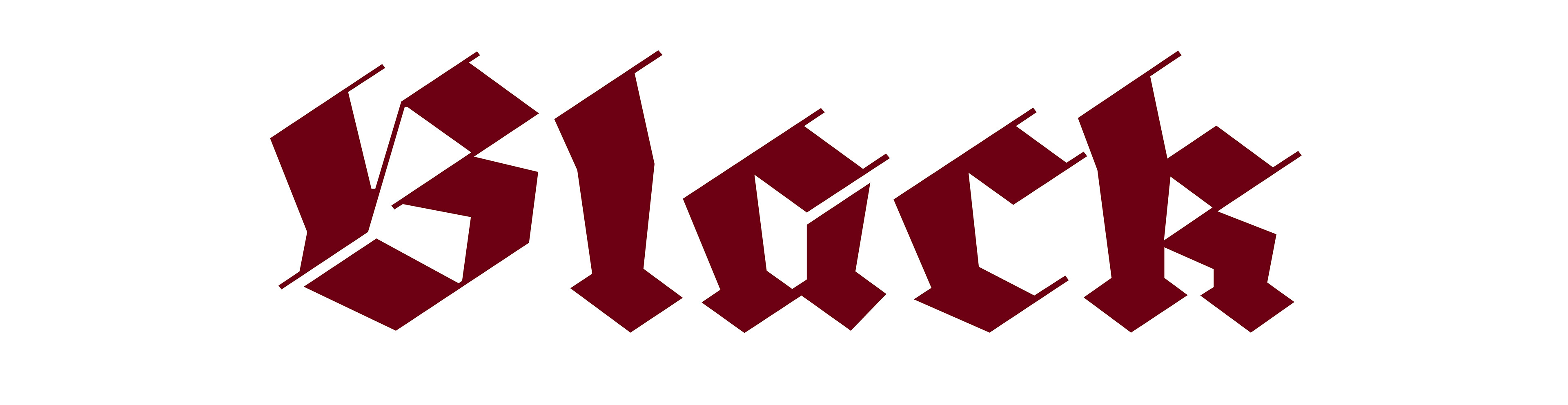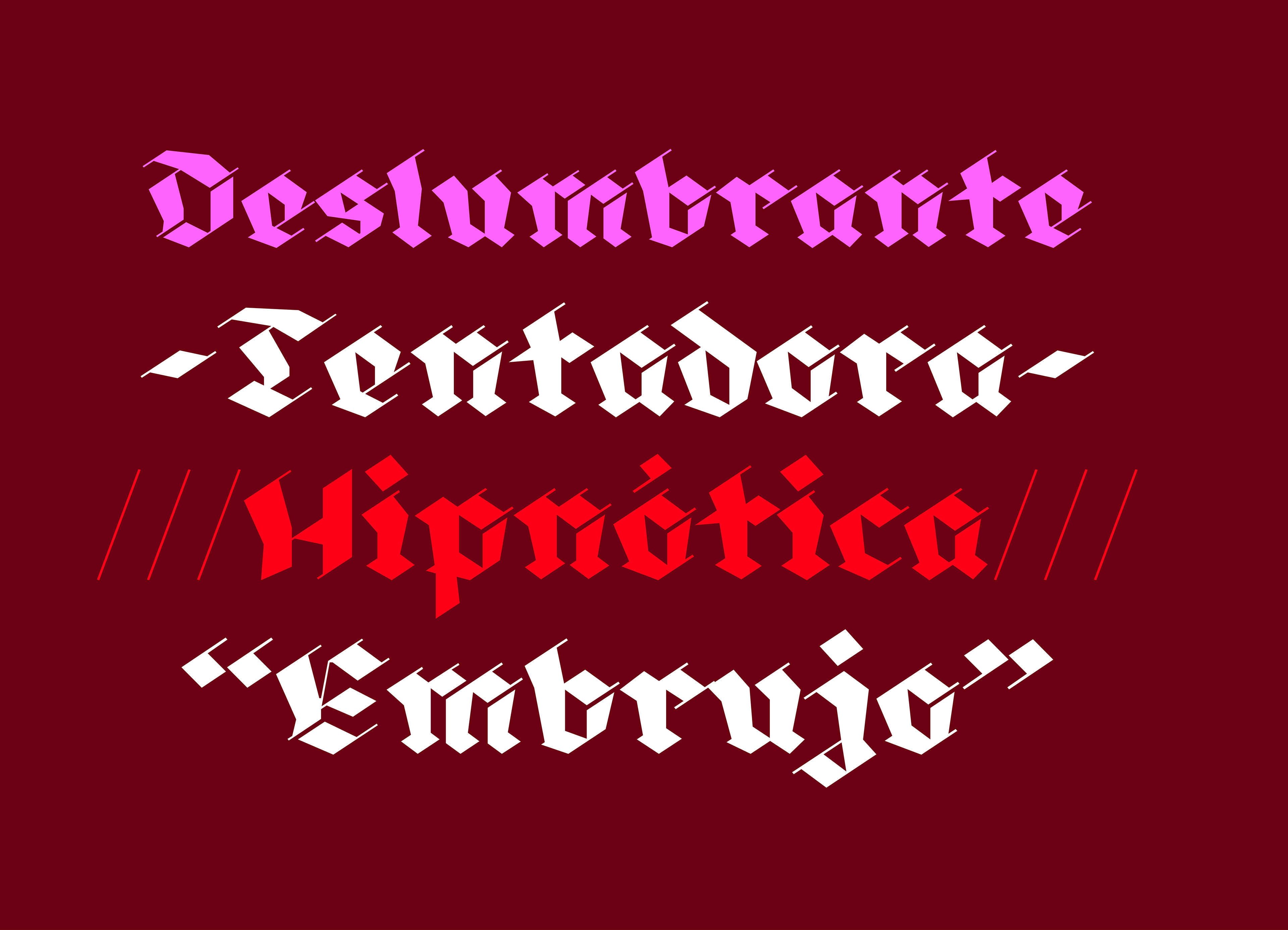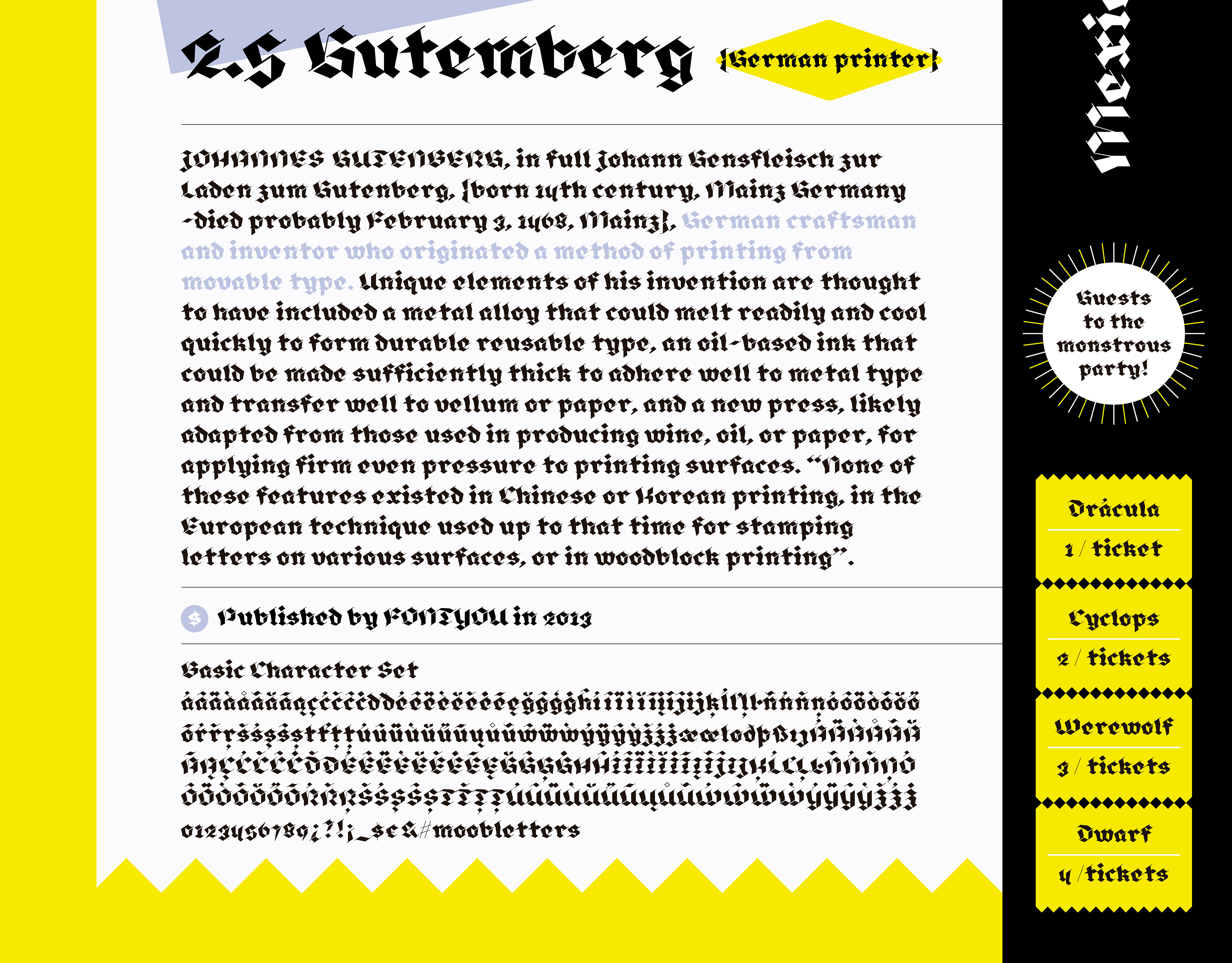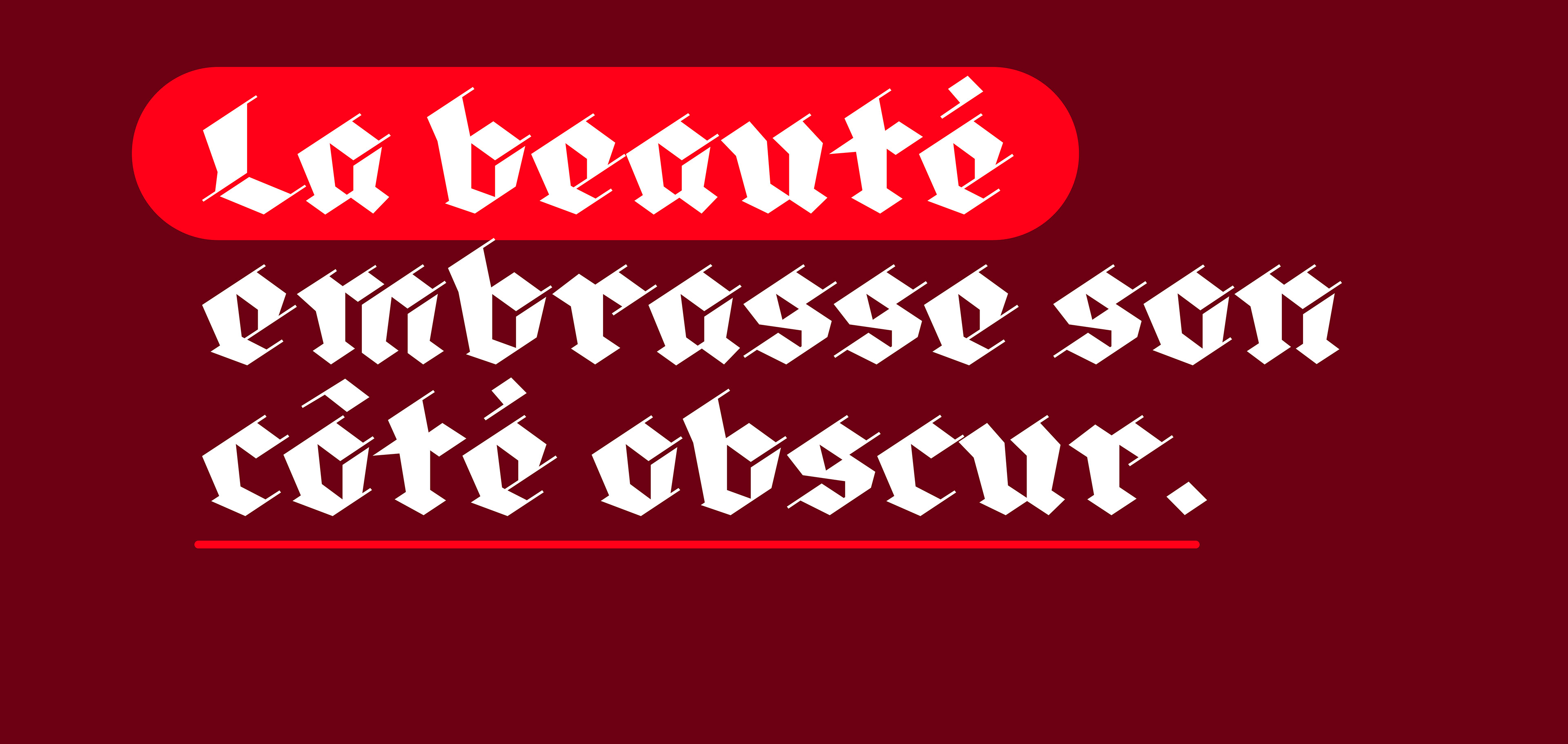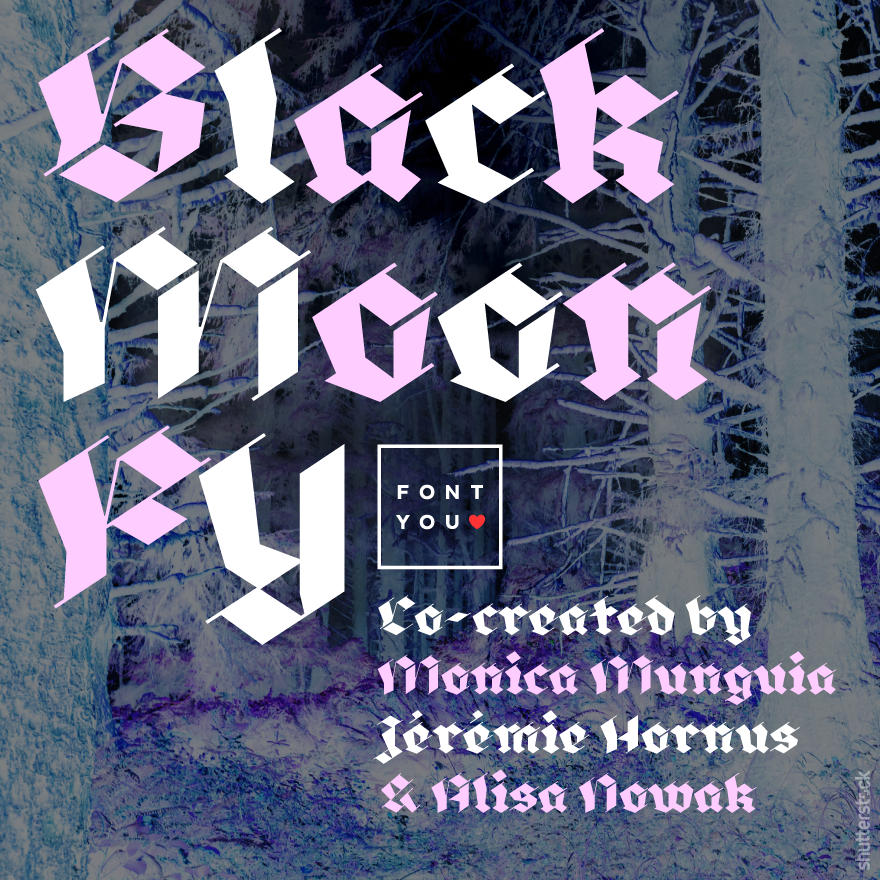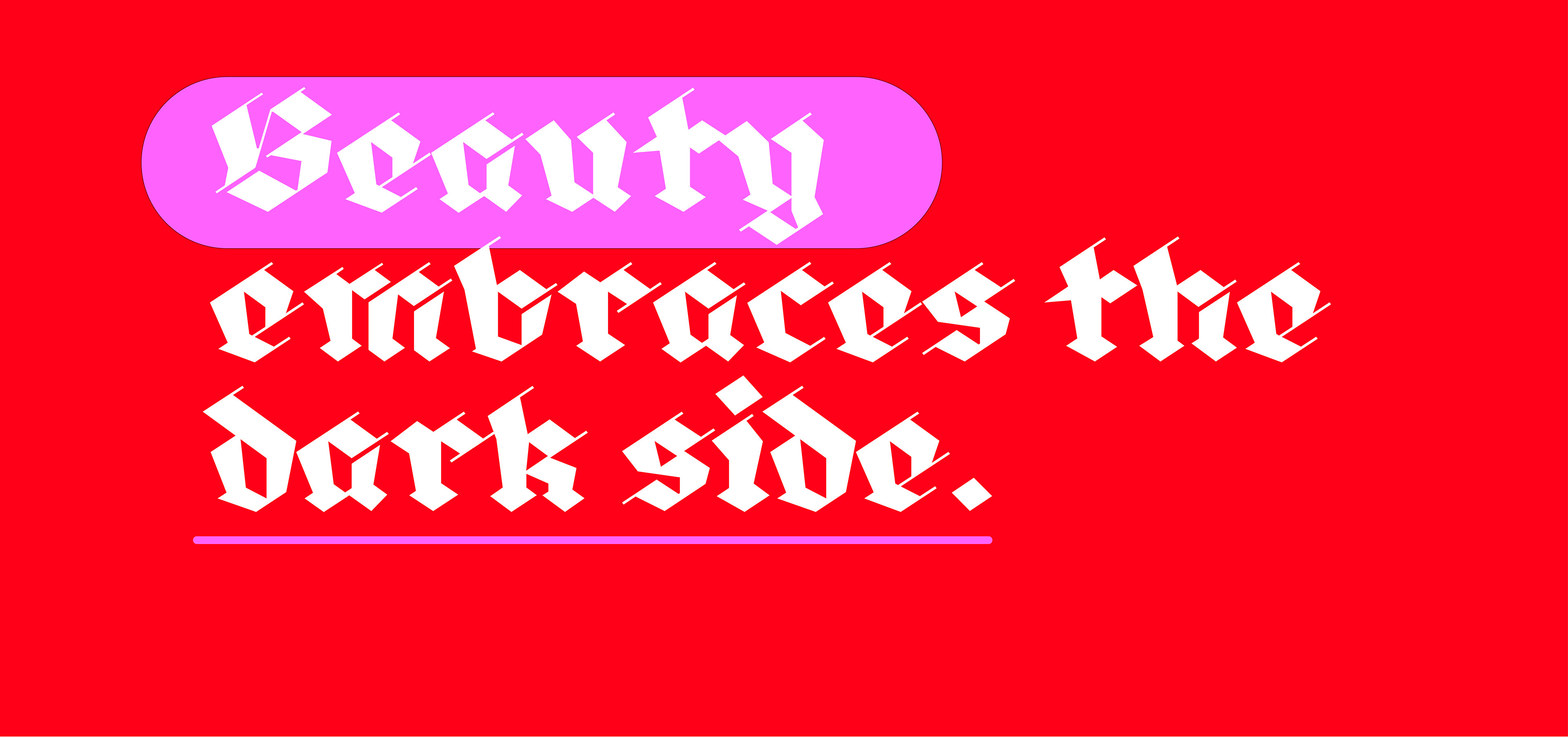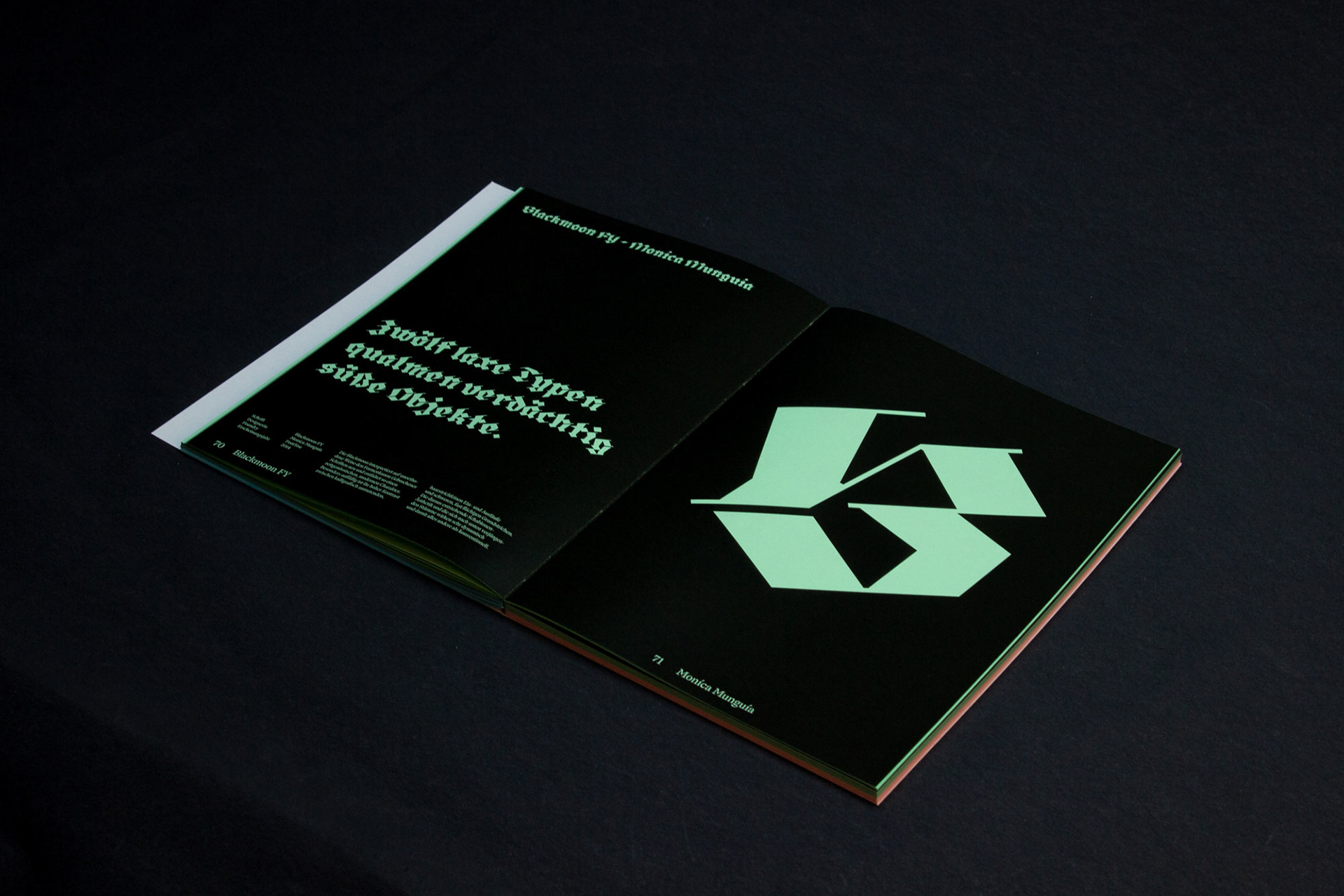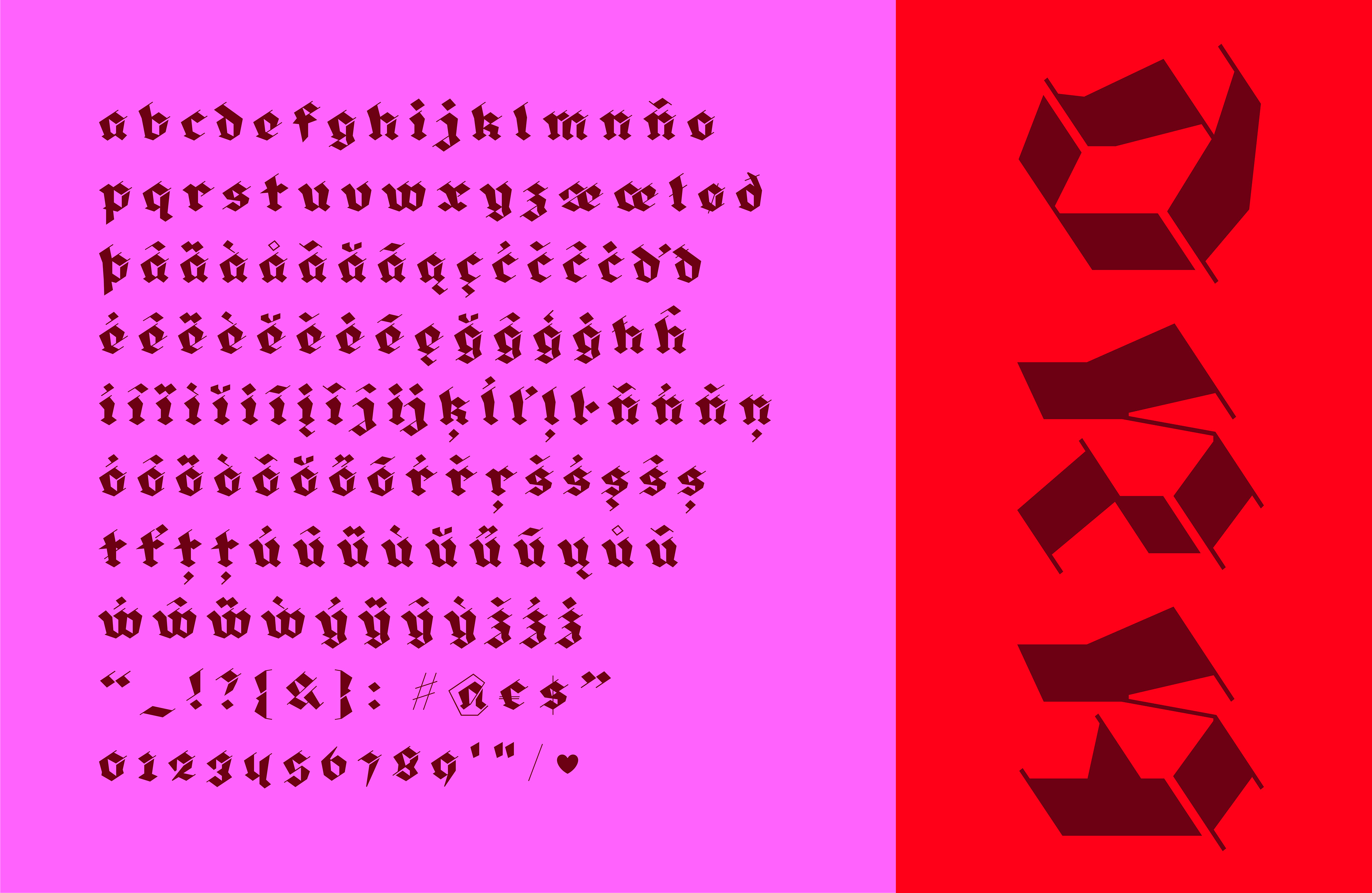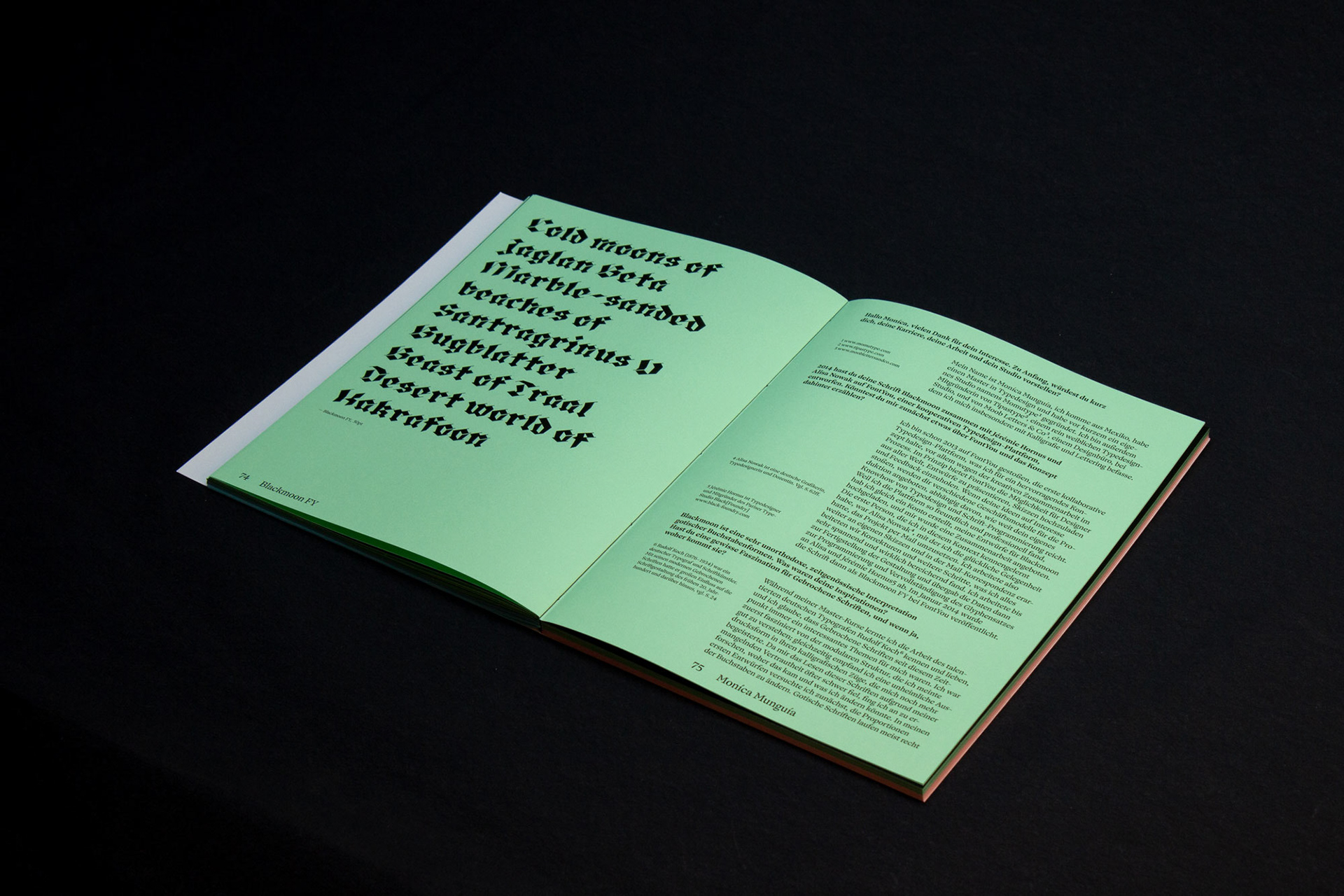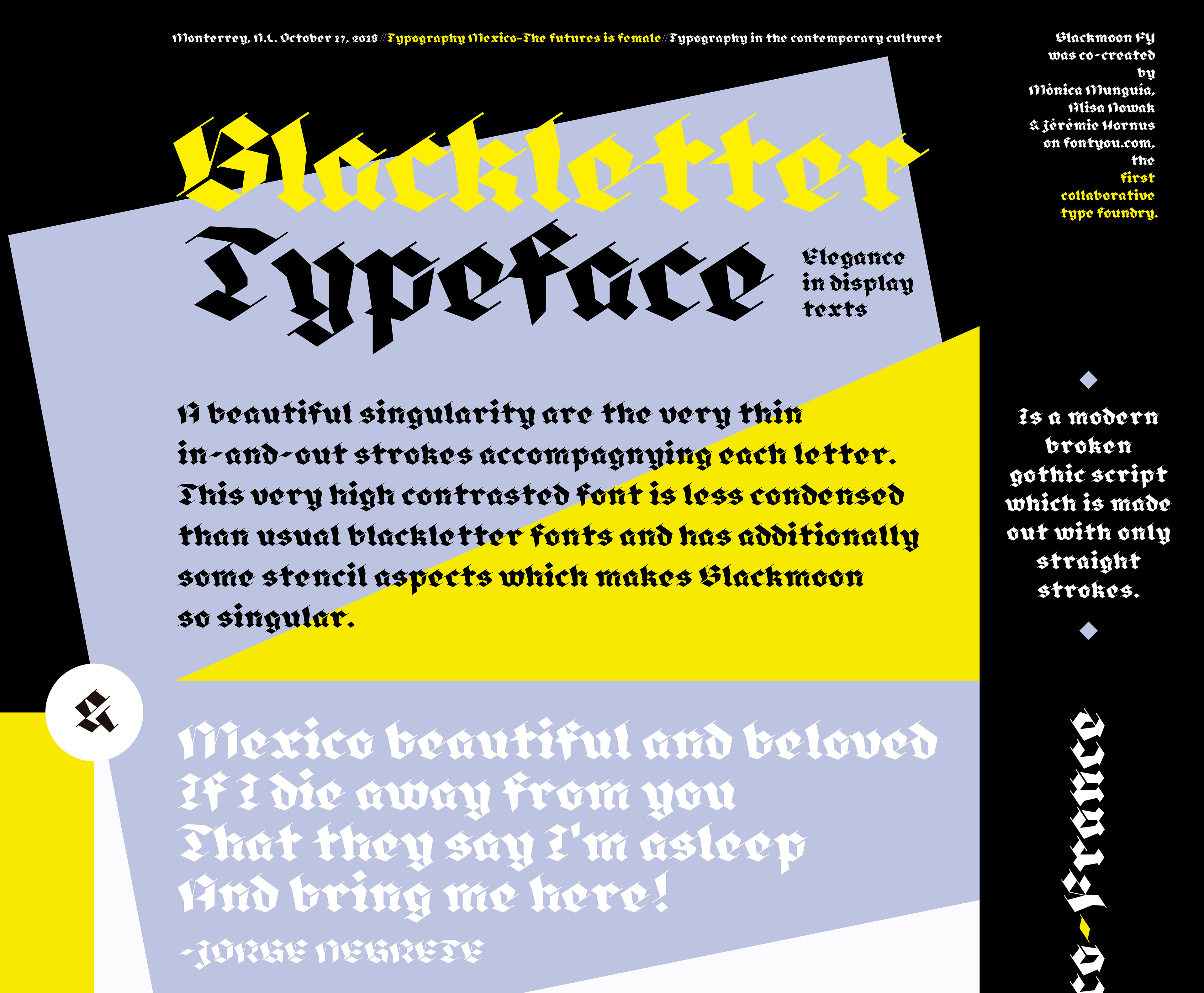
Design based on calligraphic exercises. A very particular gothic letter “B” was selected that led to the typography. A project carried out through the French foundry FontYou. Black Moon was part of their catalog and directed by Alisa Nowak and Jérémie Hornus. Launched in January 2014. Typeface selected in Tipos Latinos 2014, in the titles category.
BLACKMOON
Font in use by Andreas Blindert
Original specimen by FontYou
Poster design for TMX  exhibition